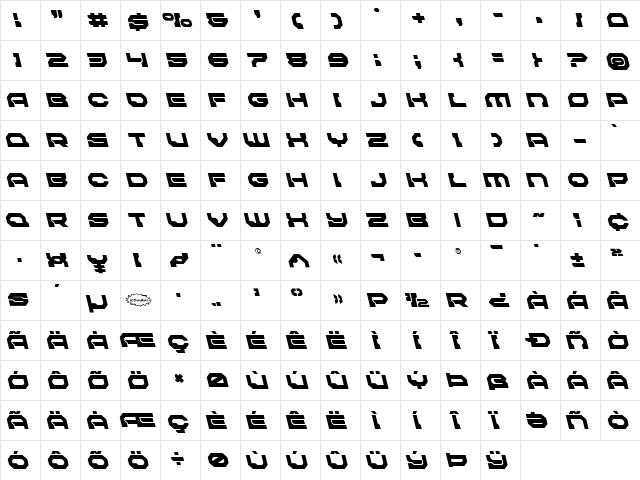
Pulsar Class Solid Leftalic Italic
Design Context for Pulsar Class Solid Leftalic Typeface
Pulsar Class Solid Leftalic takes a measured approach to typography — its balanced proportions and neutral character make it a reliable workhorse for both digital and print work. The slanted form adds forward momentum and visual energy.
Pro Tip: Use Pulsar Class Solid Leftalic for emphasis, pull quotes, and subheadings where its slanted energy can add rhythm to the layout.